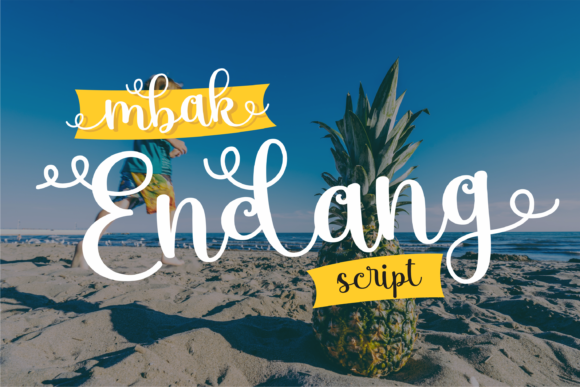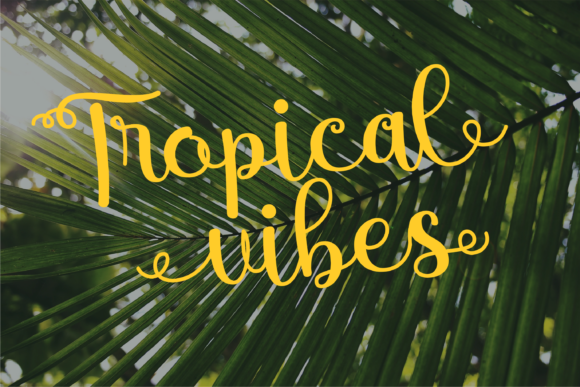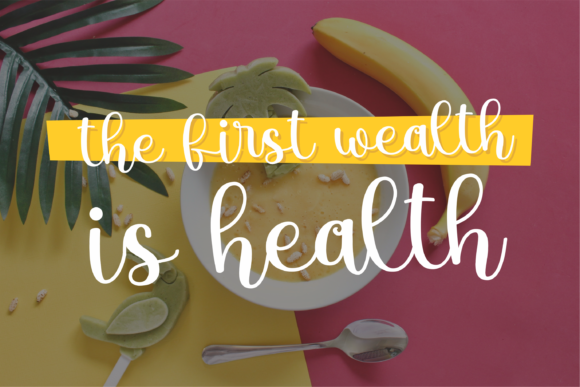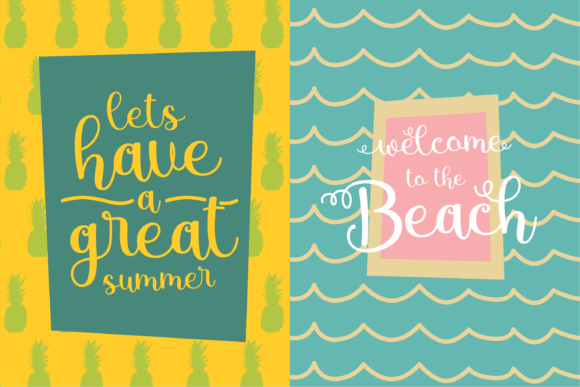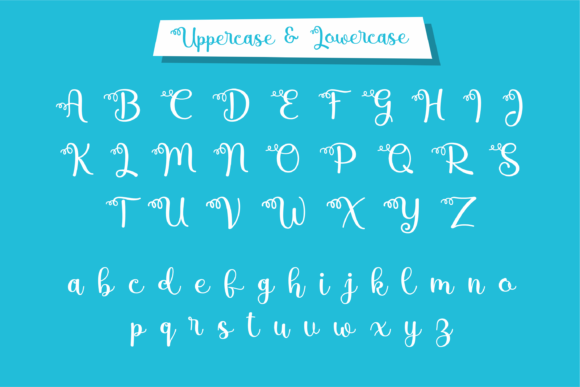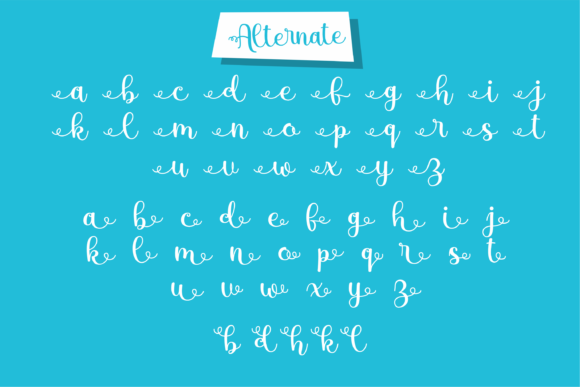
About Mbak Endang Font
Mbak Endang is a whimsical and lovely handwritten font that adds a touch of charm and playfulness to your designs. This font is PUA encoded, which means you can easily access all of the glyphs and swashes, allowing for endless creative possibilities.
The whimsical nature of Mbak Endang brings a sense of joy and enchantment to your designs. The letterforms showcase unique and quirky details, creating a delightful and whimsical aesthetic. Whether you’re working on invitations, greeting cards, or any other project, Mbak Endang adds a touch of magic that captivates and engages the viewer.
Mbak Endang’s versatility allows it to shine in various design contexts. Its playful and versatile style makes it suitable for a wide range of applications. From branding materials to social media graphics, Mbak Endang infuses your designs with a whimsical and lively vibe that catches the eye.
The PUA encoding of Mbak Endang enhances its versatility even further. With easy access to all the glyphs and swashes, you have the freedom to explore and experiment with different design elements. This opens up a world of possibilities, allowing you to create unique and spectacular designs that truly stand out.
Fall in love with Mbak Endang’s incredibly versatile style and let it ignite your creativity. Its whimsical and lovely nature adds a sense of character and personality to your designs. Embrace the playful charm of Mbak Endang and watch as it brings your ideas to life with spectacular flair.
In summary, Mbak Endang is a whimsical and lovely handwritten font that adds charm and playfulness to your designs. Its versatility and PUA encoding provide you with access to all the glyphs and swashes, allowing for limitless creative potential. Embrace the magical and versatile style of Mbak Endang and let it transform your designs into spectacular creations that capture the imagination.